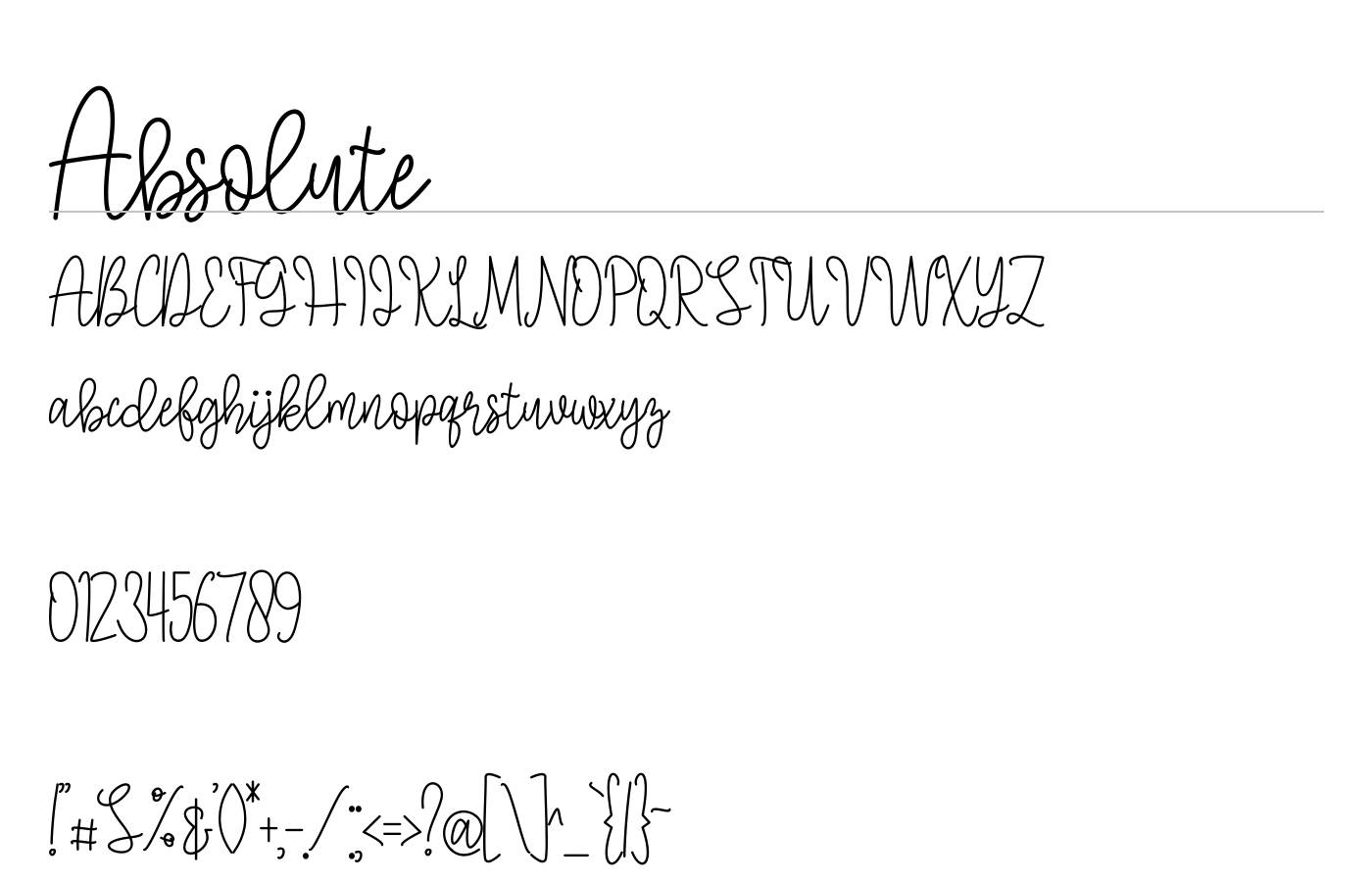
Absolute is a playful handwritten script font with a light, airy feel and slender, flowing letterforms. Its tall, narrow characters and casual loops create a friendly, informal look that suits creative projects, personal branding, and invitations. This font works well in designs that need a touch of handmade charm and personality without sacrificing readability.
Absolute Font